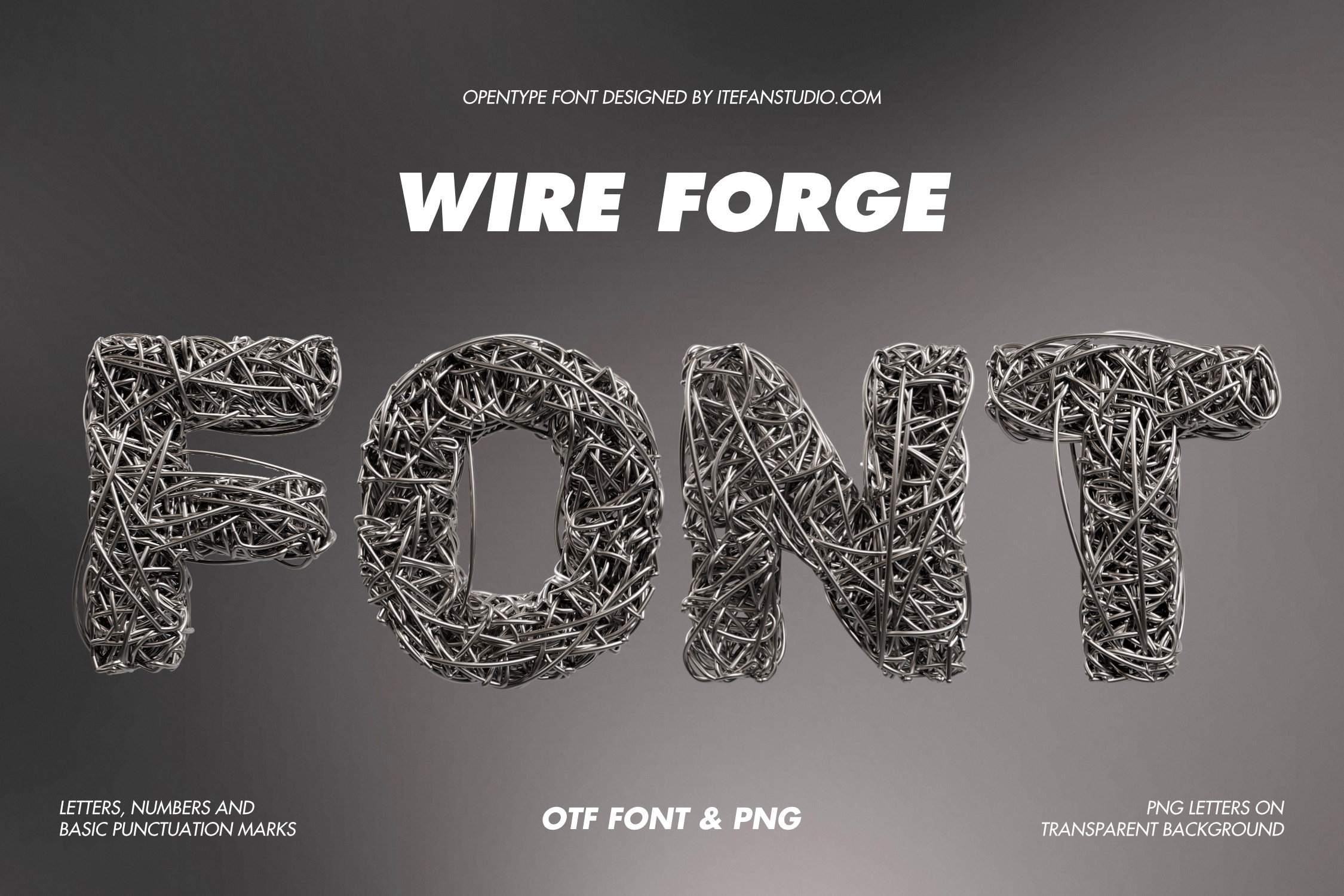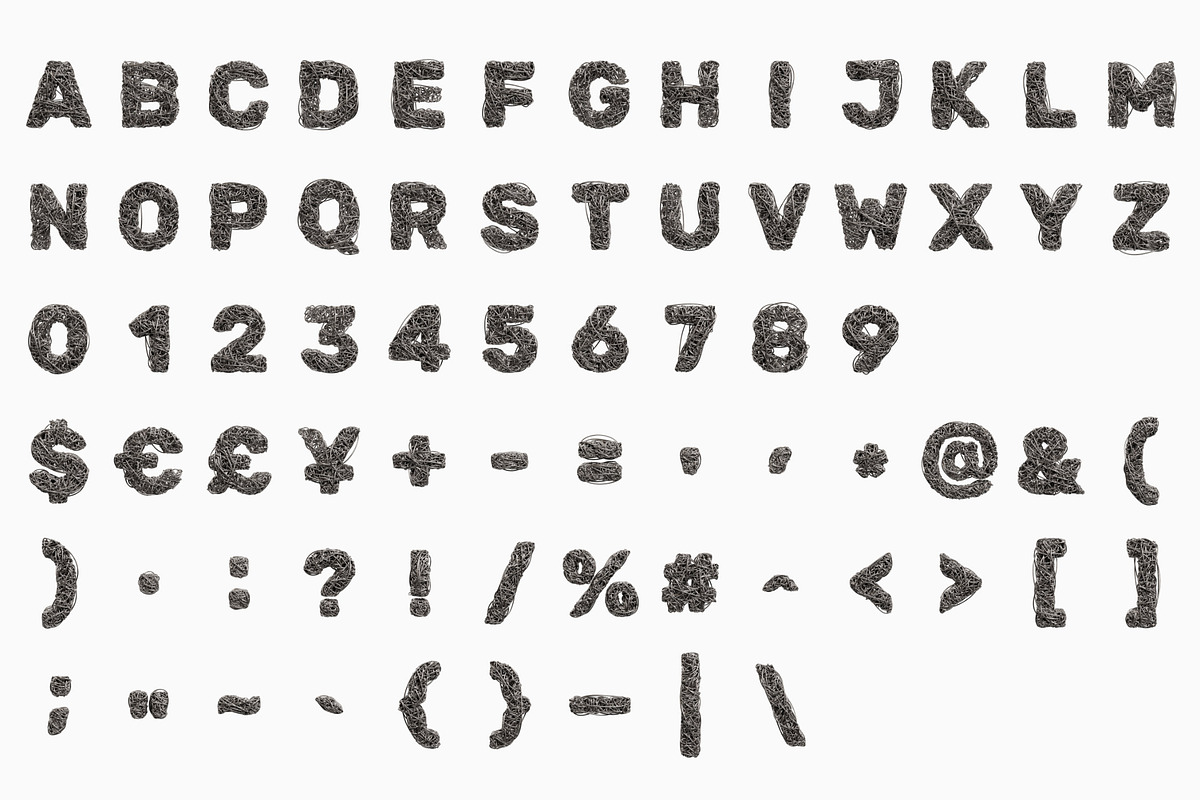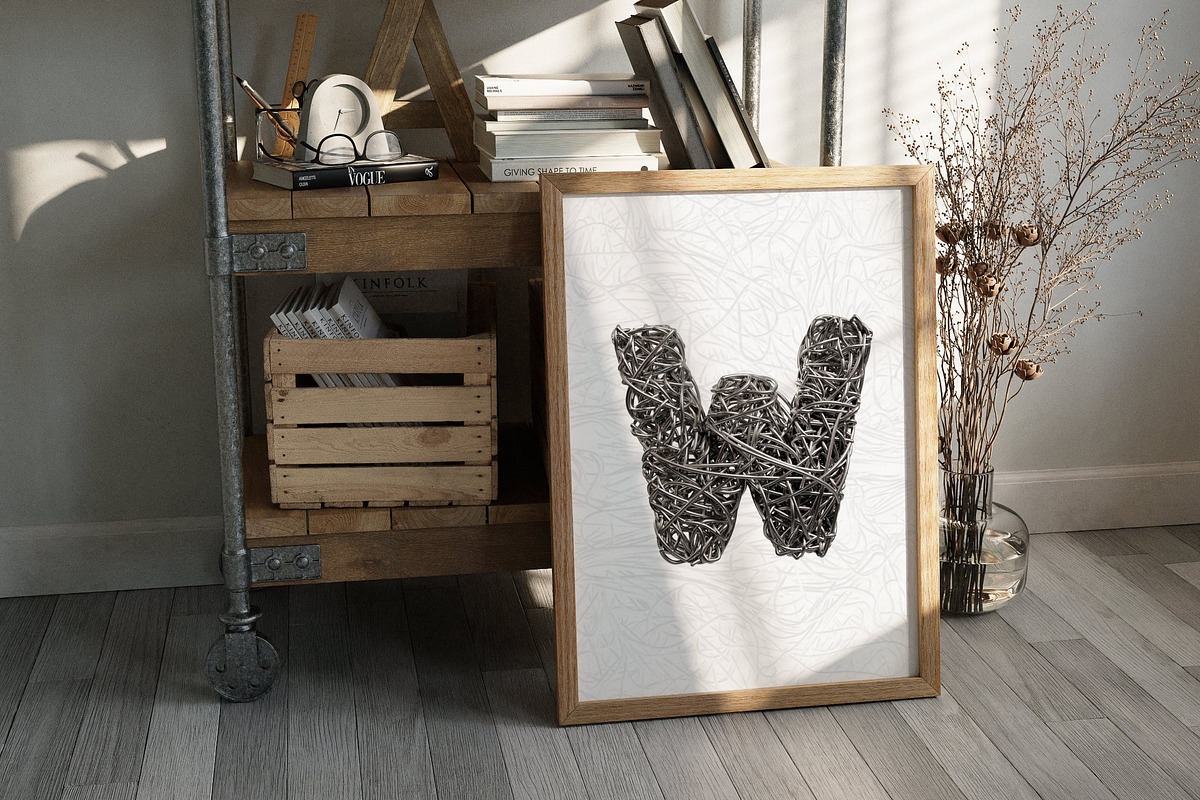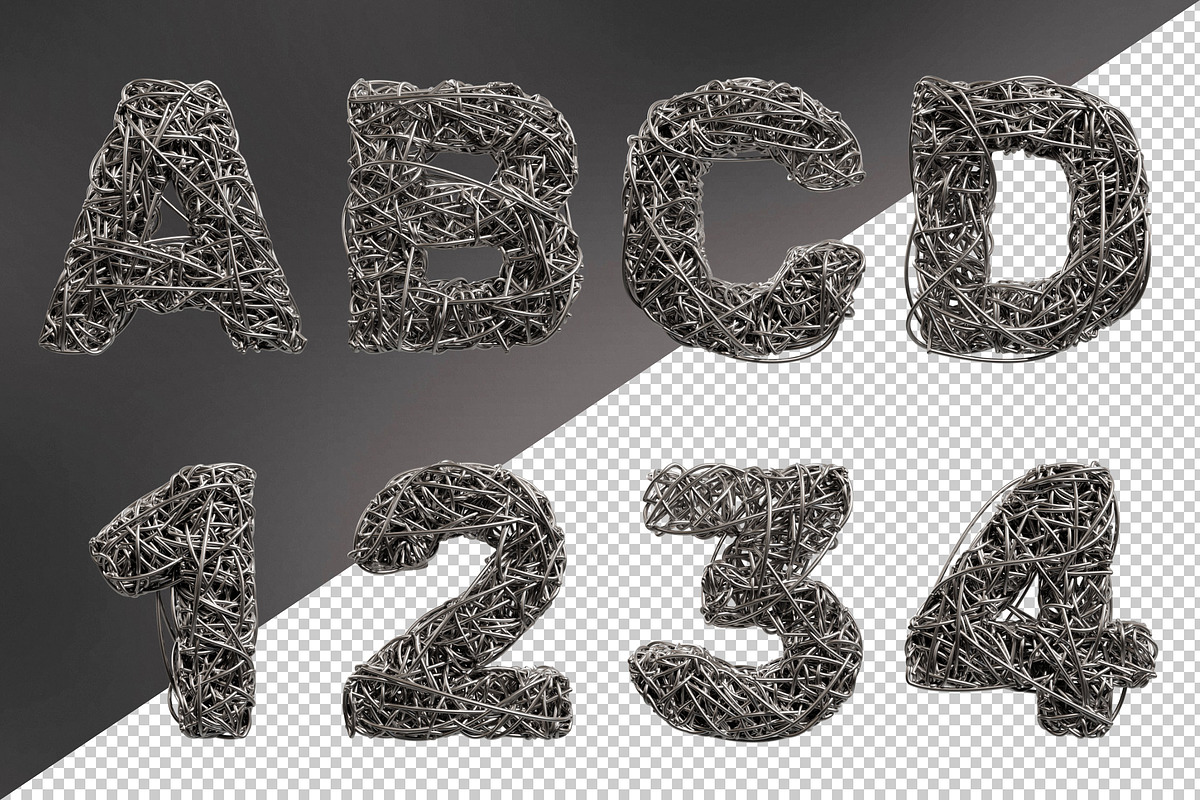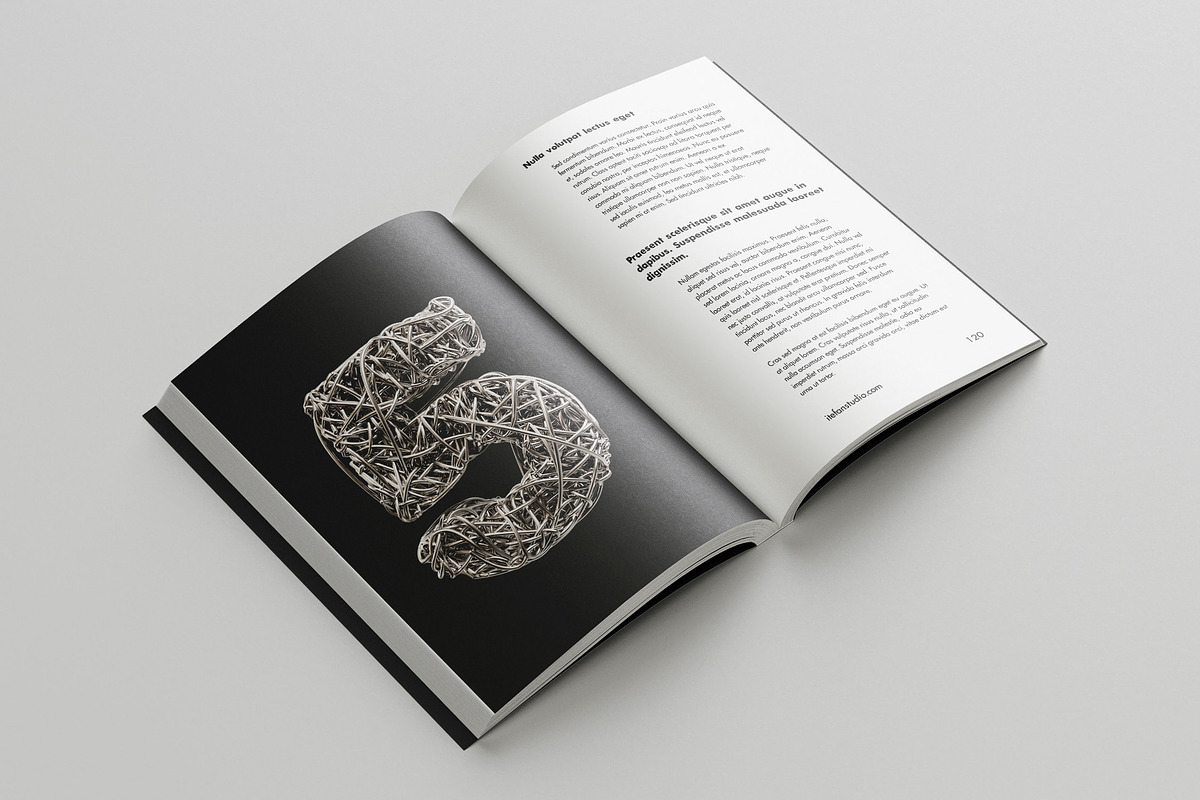
Wire Forge Font
Stand out with this striking typeface, crafted from numerous tightly woven, shiny metallic wires that form a textured, three-dimensional appearance. Featuring a bold, modern style with realistic silver textures and intricate wirework, it's perfect for adding depth and sophistication to your designs. Available in both OTF and PNG formats with transparent backgrounds.
- Letters : A B C D E F G H I J K L M N O P Q R S T U V W X Y Z
- Numbers : 0 1 2 3 4 5 6 7 8 9
- Others : $ € £ ¥ + - = ' , * @ & ( ) . : ? ! / % # ^ [ ] ; " ~ ` { } _ |
This font is a high-resolution OpenType typeface featuring uppercase letters, numbers, and basic punctuation, with each character approximately 800 pixels tall. A complete preview of all letters and glyphs is provided for reference.